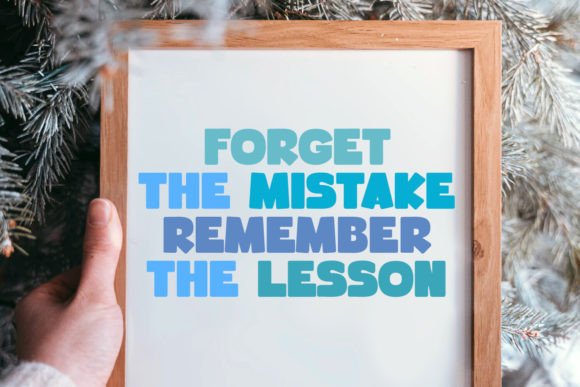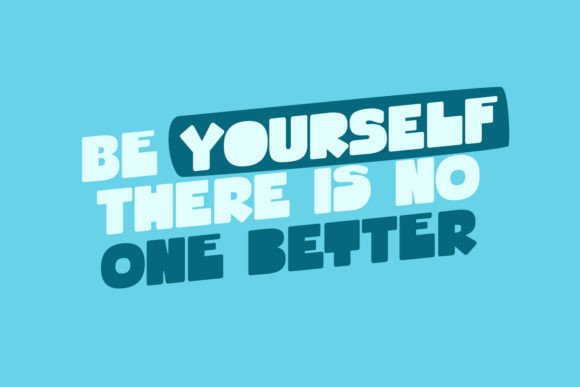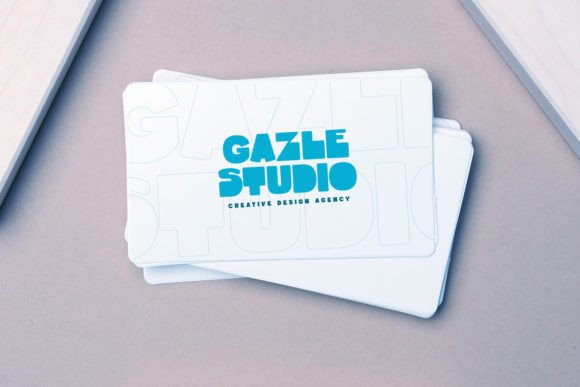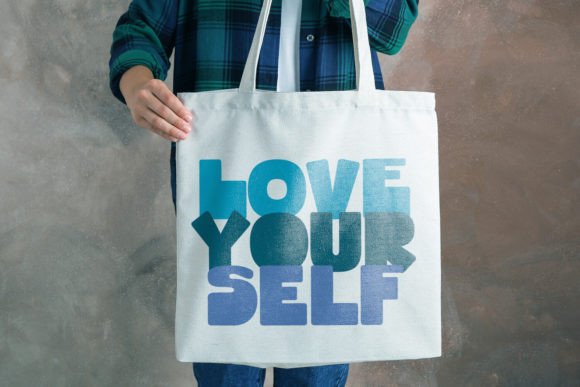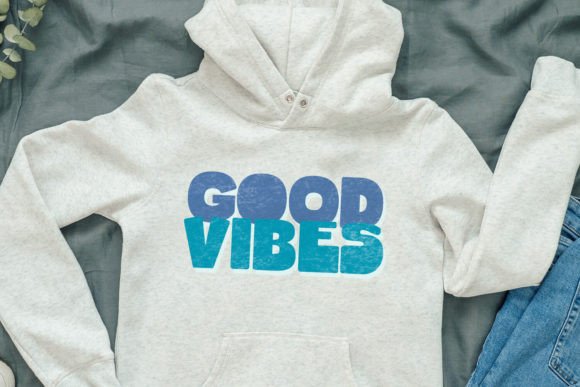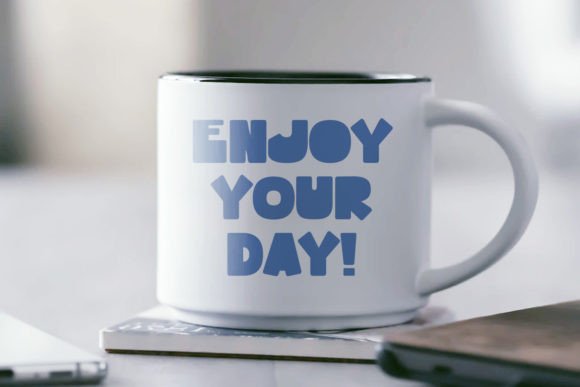
Introduction to Never Come Font Font
Fonts play a crucial role in design, and the Never Come Font font is a typeface that brings both character and versatility to any project. Whether you’re working on a branding project, a website, or a print design, the Never Come Font font offers a unique style that can elevate your work.
Never Come is a vibrant and playful display font that radiates joy and energy.
Its very thick weight and low contrast create a bold presence On the other side, the rounded shapes soften its impact, adding a friendly and approachable feel.
Key Features of Never Come Font Font
Why Choose Never Come Font Font?
The Never Come Font font is more than just a typeface – it’s a design tool that helps you communicate your message with style and clarity. Its unique character set and versatile design make it suitable for a wide range of applications, from elegant invitations to bold headlines.
With its carefully crafted letterforms and balanced proportions, the Never Come Font font ensures readability and visual appeal across all mediums.
What makes Never Come Font font special?
The Never Come Font font stands out with its unique design, exceptional readability, and versatility across various design applications.